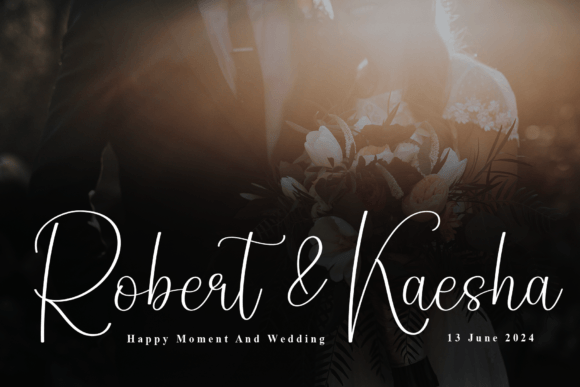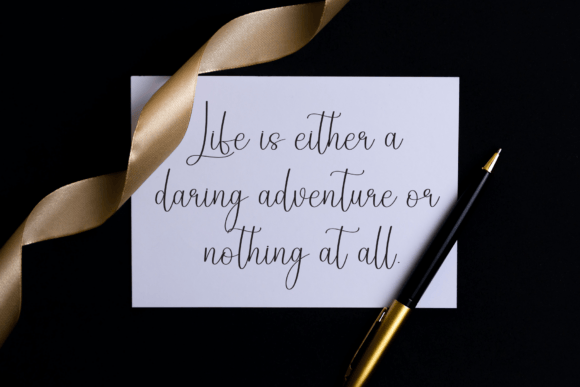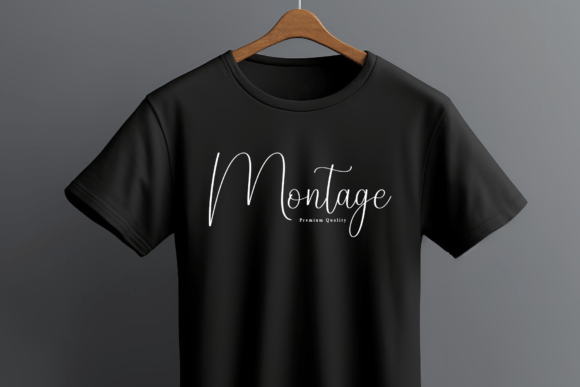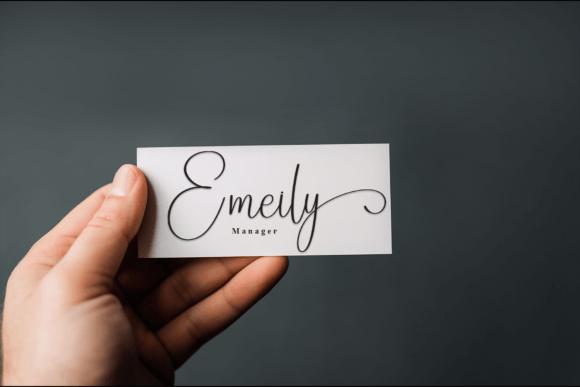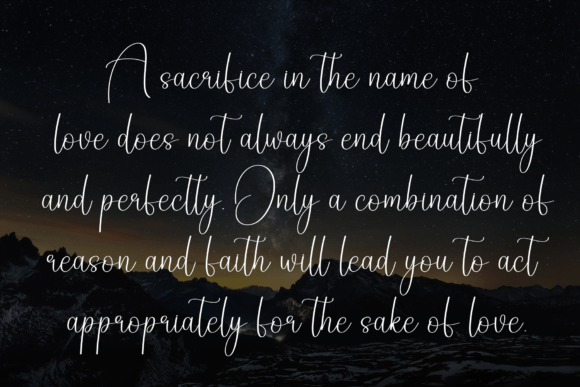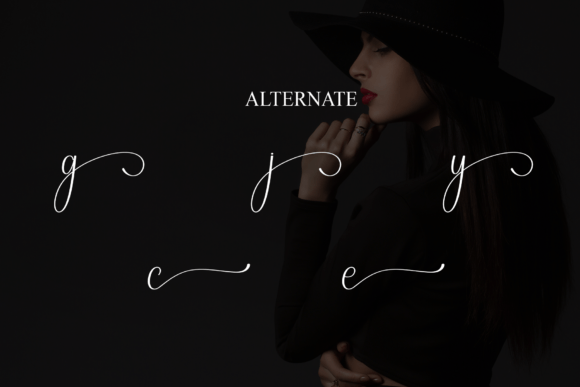
The Perfect Blend of Personality and Creativity
As a designer, have you ever found yourself staring at a blank page, searching for that elusive spark of inspiration? You know, that moment when the perfect font comes along and suddenly brings your entire design to life? For many creatives, that moment is exactly what the Ashley Southine Font embodies.
Ashley Southine is a sweet and friendly handwritten font, designed to add a personal touch to any project. Its natural and unique style makes it incredibly fitting to a large pool of designs, from elegant invitations to playful social media graphics. Whether you’re working on a client project or a personal passion, Ashley Southine Font is the perfect companion to bring your vision to life.
Ashley Southine Font Key Features
- Font Size: The font is available in 4 different font sizes: Regular (400), Bold (700), Italic (400), and Bold Italic (700), offering flexibility for various design applications.
- Unique Characteristics: This script font features elegant, cursive lettering with a touch of vintage charm, making it perfect for creative projects that require a personal and sophisticated touch.
A Review of Ashley Southine Font
I recently had the chance to work with the Ashley Southine Font, and I must say it’s a unique addition to any design project. ✨ Here are some of the things that stood out to me:
- ✨ High-quality renderings: The font has crisp, clear lines that give it a professional look.
- ✨ Versatility: Ashley Southine can be used for a variety of projects, from body text to headings, and even logos.
- ✨ Distinctive feel: The font has a distinctive feel that sets it apart from other fonts.
However, as with any font, there are some limitations to consider:
- ⚠️ Limited character set: The font doesn’t include all the special characters you might need for certain languages.
- ⚠️ May not be suitable for small text: The font’s high x-height and strong lines can make it difficult to read in smaller sizes.
Overall, I think Ashley Southine is a great addition to any designer’s toolkit. It’s a solid choice for projects where you want to add a touch of elegance and sophistication. Just be sure to consider the limitations and use it thoughtfully.
Tips for Getting the Most Out of Ashley Southine Font
Use Ashley Southine Font for titles, headings, and quotes to add a touch of elegance and sophistication to your designs.
Pair Ashley Southine Font with a clean and simple background to let the font take center stage.
Experiment with different font sizes and colors to create a visually appealing contrast.
Ashley Southine Font is ideal for:
- Formal event branding and marketing materials.
- High-end product packaging and labels.
Alternatives to Ashley Southine Font for Designers